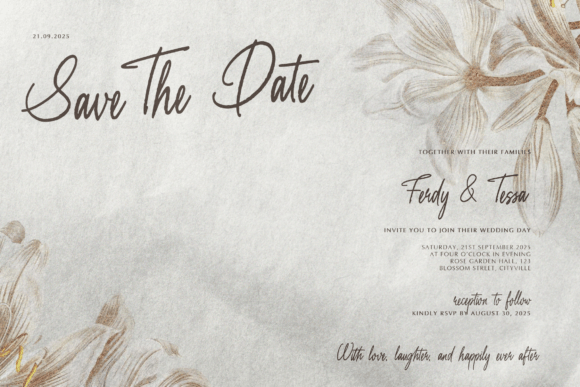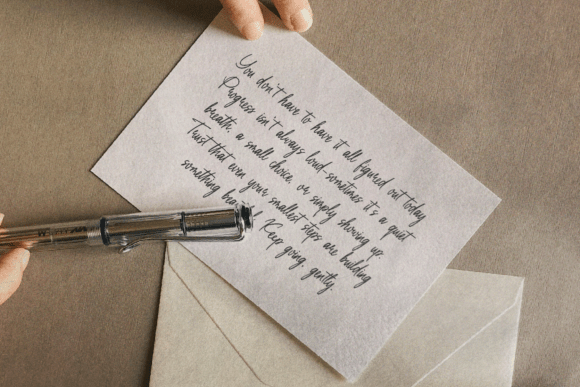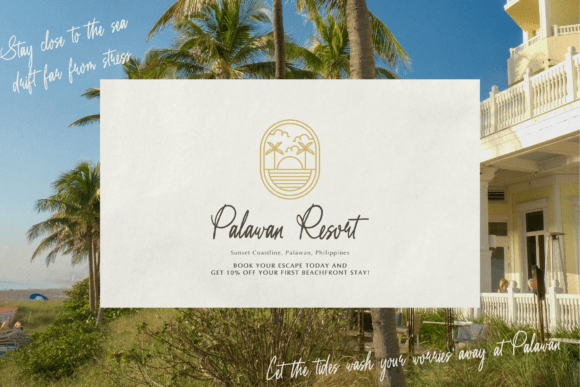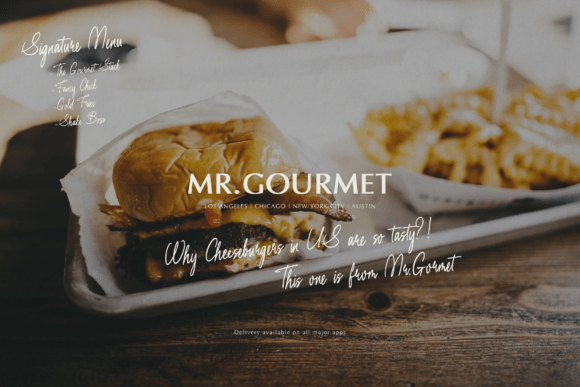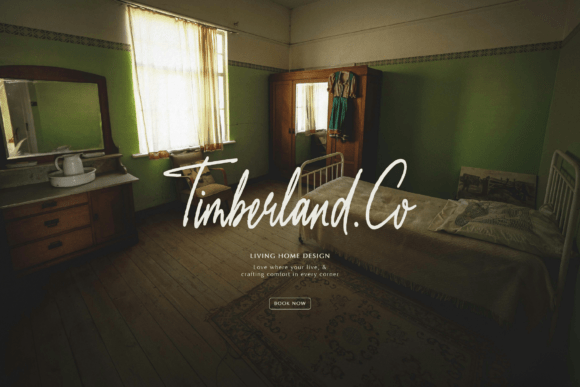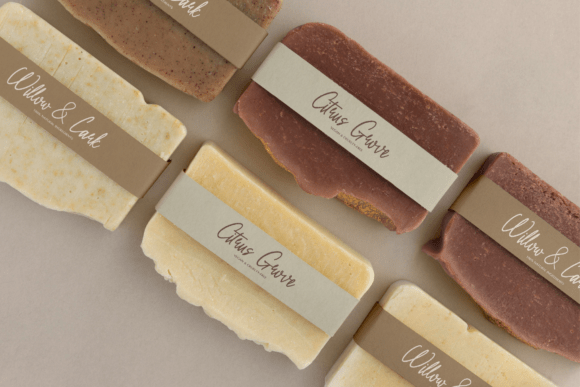
Introduction to Daily Miracle Font
Have you ever found yourself sitting at your desk, surrounded by scribbled notes and scattered ideas, searching for the perfect font to bring your creative project to life? That’s exactly what happened to me when I stumbled upon the Daily Miracle Font. This beautiful handwritten script font is a game-changer for designers looking to add a personal touch to their work.
With its naturally flowing, ink-pen texture and delicate curves, the Daily Miracle Font is perfect for branding, wedding invitations, journaling, packaging, and inspirational quotes. Its effortless rhythm and intimate tone make every message feel special and heartfelt. Whether you’re a professional designer or a creative enthusiast, this high-quality font is a valuable resource that will elevate your design projects.
Key Features of Daily Miracle Font
- High-quality, professional font design suitable for various creative projects.
- Comes with a transparent background, allowing for easy integration with any design.
- Compatible with a wide range of software and design tools, including Adobe Creative Cloud.
- Includes a range of font sizes, from 12pt to 72pt, with a resolution of 300 DPI.
- Designed as a versatile design resource, ideal for use in logos, branding, and marketing materials.
- Perfect for those looking for a unique and creative font to elevate their design projects.
Honest Review: Daily Miracle Font
I recently had the chance to experiment with the Daily Miracle Font, and I must say it’s been a delightful addition to my design arsenal. The font is a high-quality, free download that’s perfect for any creative project.
One of the standout features of this font is its versatility. It’s available in both bold and regular styles, making it easy to find the perfect fit for your design needs. ✨ The font also features a transparent background, which makes it a great option for overlaying text on images.
Here are some of the things I like about the Daily Miracle Font:
- Available in both bold and regular styles
- Transparent background for easy text overlay
However, I did encounter a few limitations. ⚠️ The font is only available in a limited number of weights, which may not be ideal for designers who need a wider range of options. Additionally, the font may not be as suitable for body text, as it can be a bit too ornate for large blocks of text.
Overall, I’m impressed with the Daily Miracle Font and would definitely recommend it to designers looking for a high-quality, free design resource.
Tips for Getting the Most Out of Daily Miracle Font
Experiment with different font sizes and styles to add visual interest to your designs. Use the font in combination with other design elements to create a cohesive look. Don’t be afraid to try new things and push the boundaries of what’s possible with this versatile font.
The Daily Miracle Font is perfect for creating social media graphics, blog posts, and other digital content. Its high-quality design and transparent background make it ideal for use in a variety of design applications, from creative projects to everyday documents.